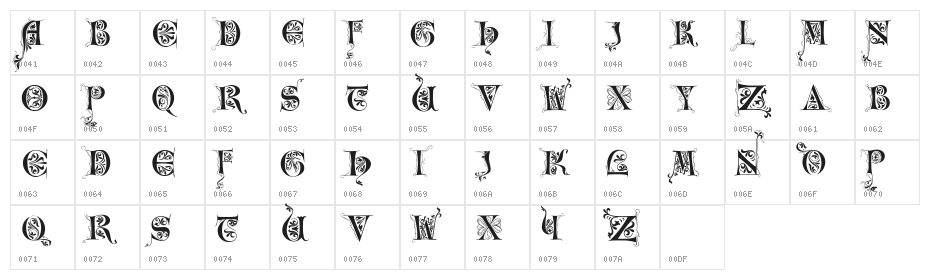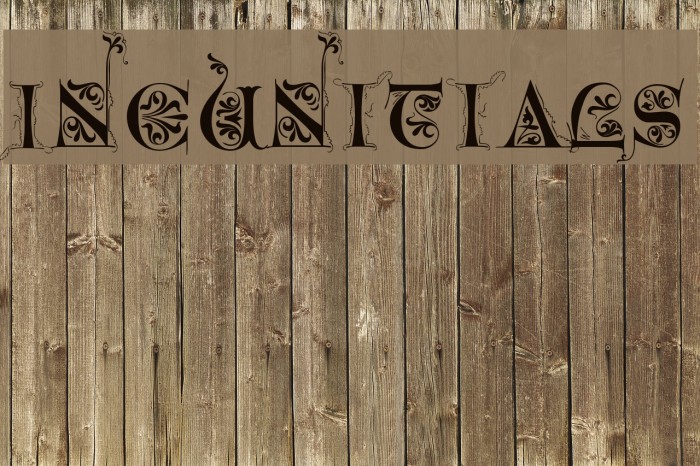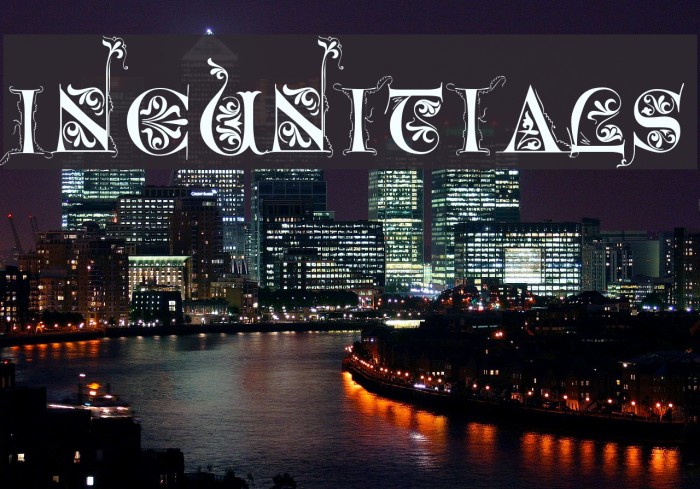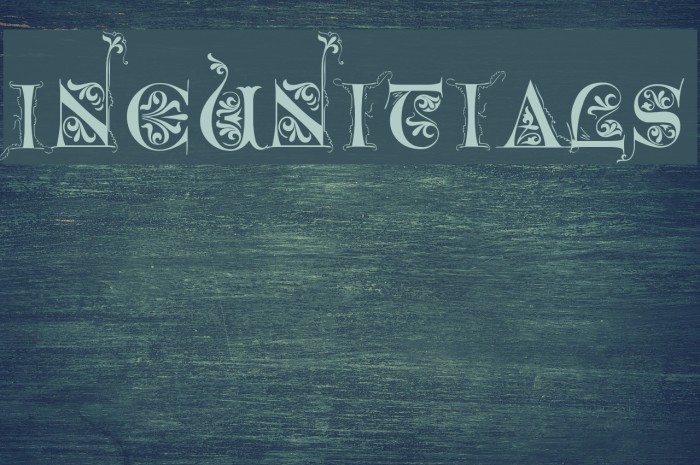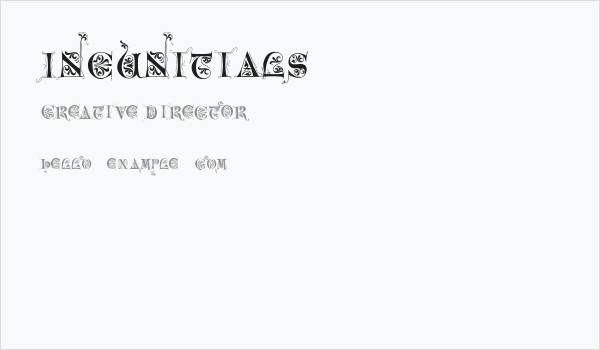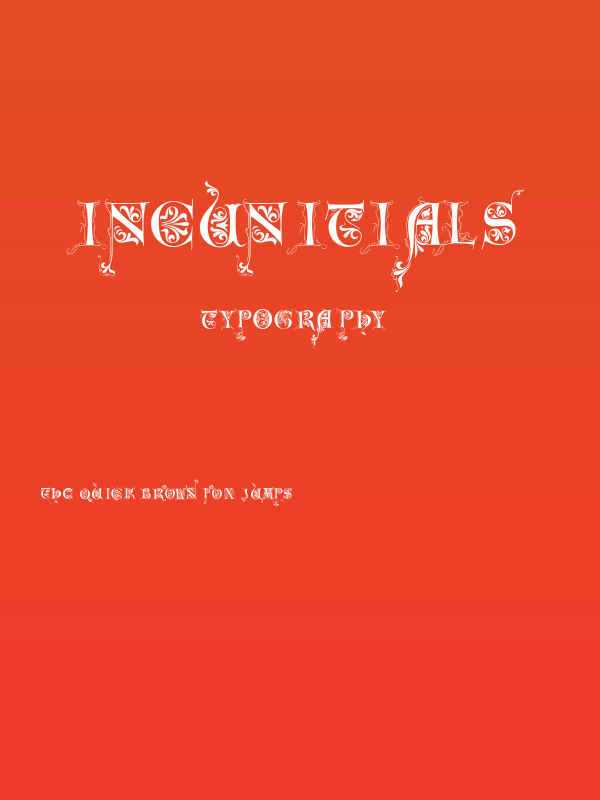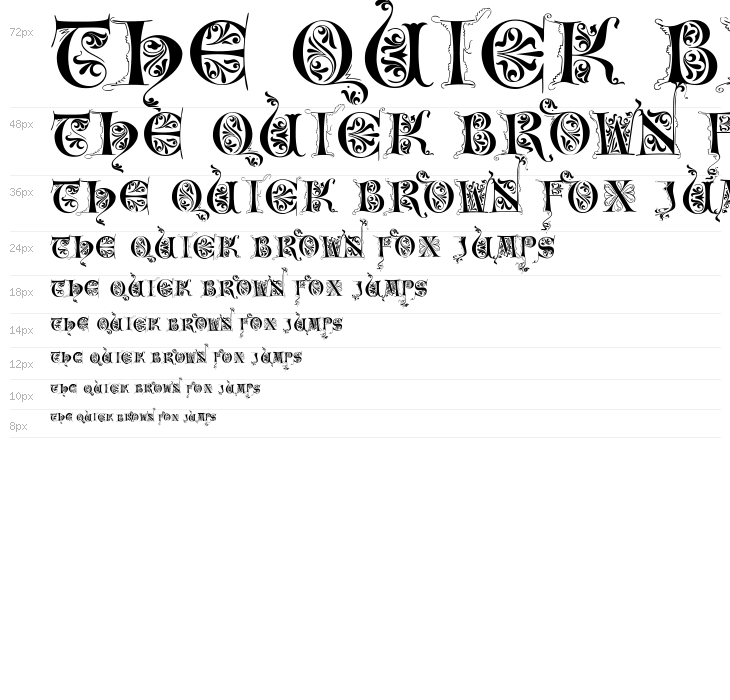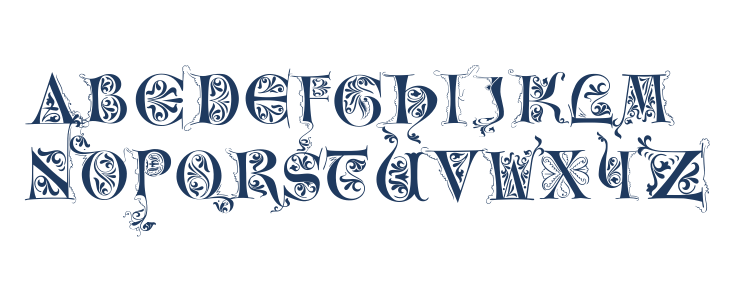
Incunitials Font
Incunitials Description
This font is a highly decorative and ornate typeface, characterized by intricate floral and vine-like embellishments that intertwine with each letter. The uppercase letters are particularly elaborate, featuring bold strokes and detailed patterns that evoke a sense of historical elegance and artistic flair. Each character is a work of art, with unique embellishments that make it stand out, yet the overall style remains cohesive. The font's design is reminiscent of medieval manuscripts or early printed books, lending it a vintage and classic appeal. The intricate details and bold presence make it ideal for projects that require a touch of sophistication and historical charm.
| Use Case | Logos, Headlines, Decorative purposes |
| Proposed Projects | Perfect for use in wedding invitations, historical book covers, vintage posters, or any project seeking a classic and sophisticated aesthetic. |